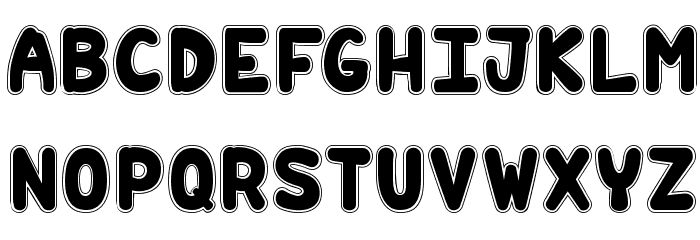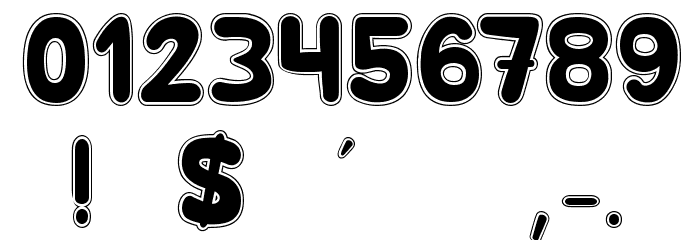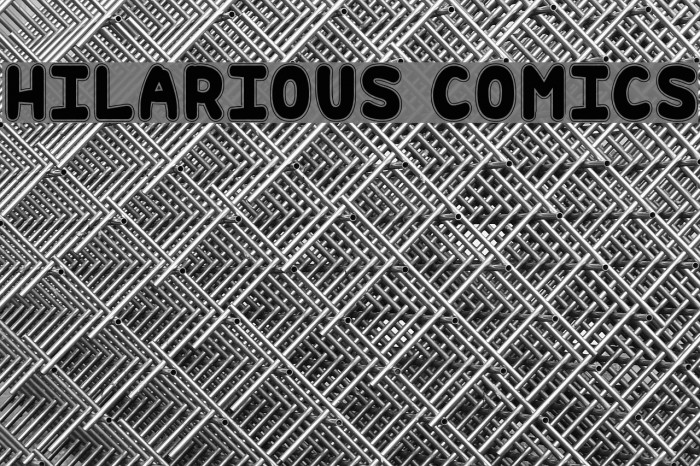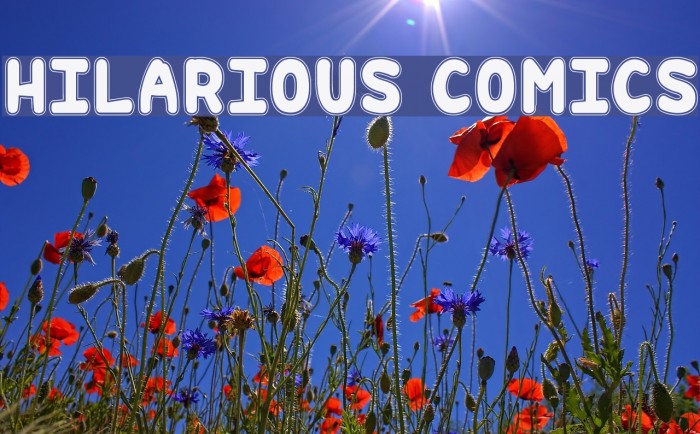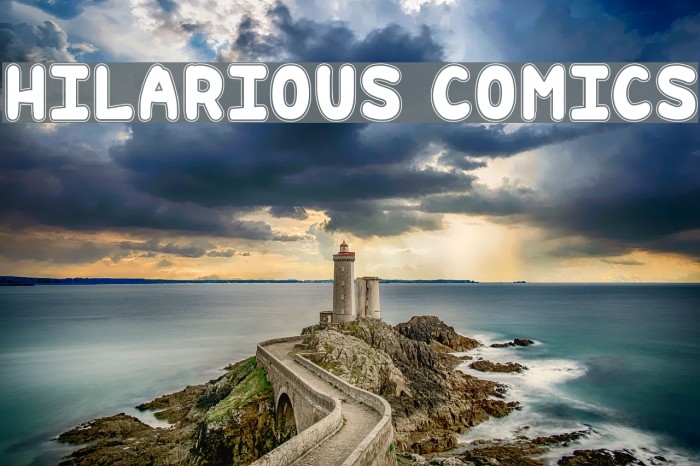
Hilarious Comics Font
This playful and bold font features thick, rounded characters with a distinct outline that gives it a comic-like appearance. The uppercase and lowercase letters maintain a consistent style, with smooth curves and a slightly whimsical feel. The numbers and special characters are designed to match the overall aesthetic, making the font suitable for creative and fun projects. Its bold presence and outlined design make it stand out, ideal for capturing attention in various applications. The font's style is reminiscent of classic comic book lettering, bringing a sense of nostalgia and humor.
A bold, outlined font with a playful, comic-like style.
- Font: Hilarious Comics
- Proposed Projects: Ideal for comic books, children's books, playful branding, posters, and any project requiring a fun and engaging typeface.
- Overall Style: Playful, Comic